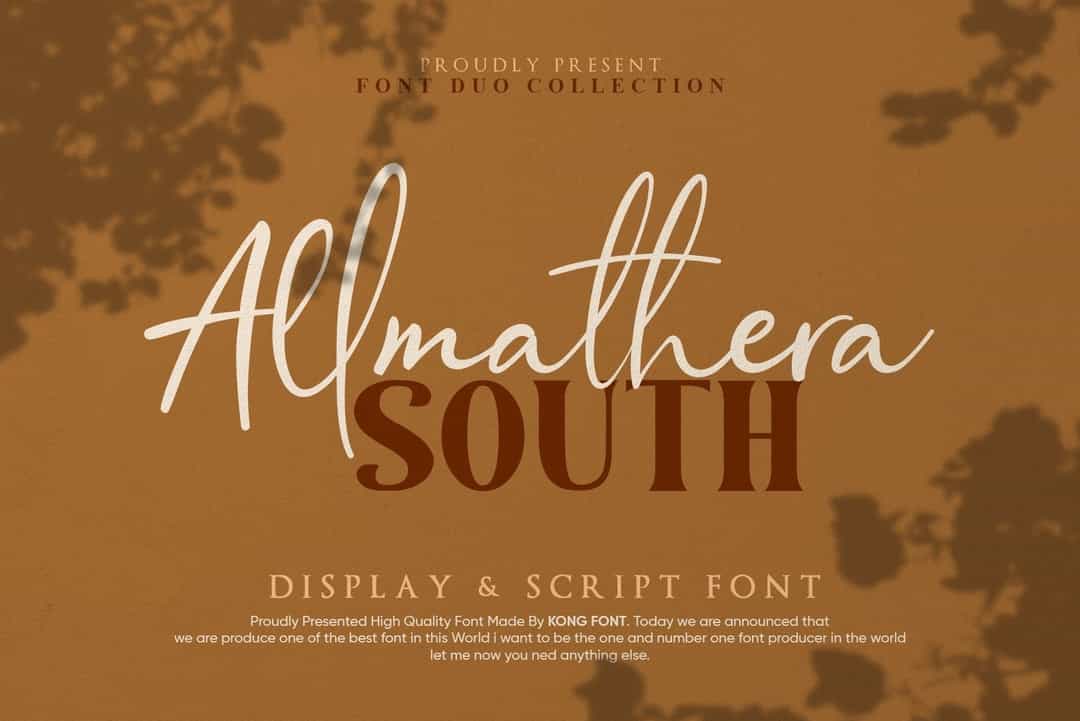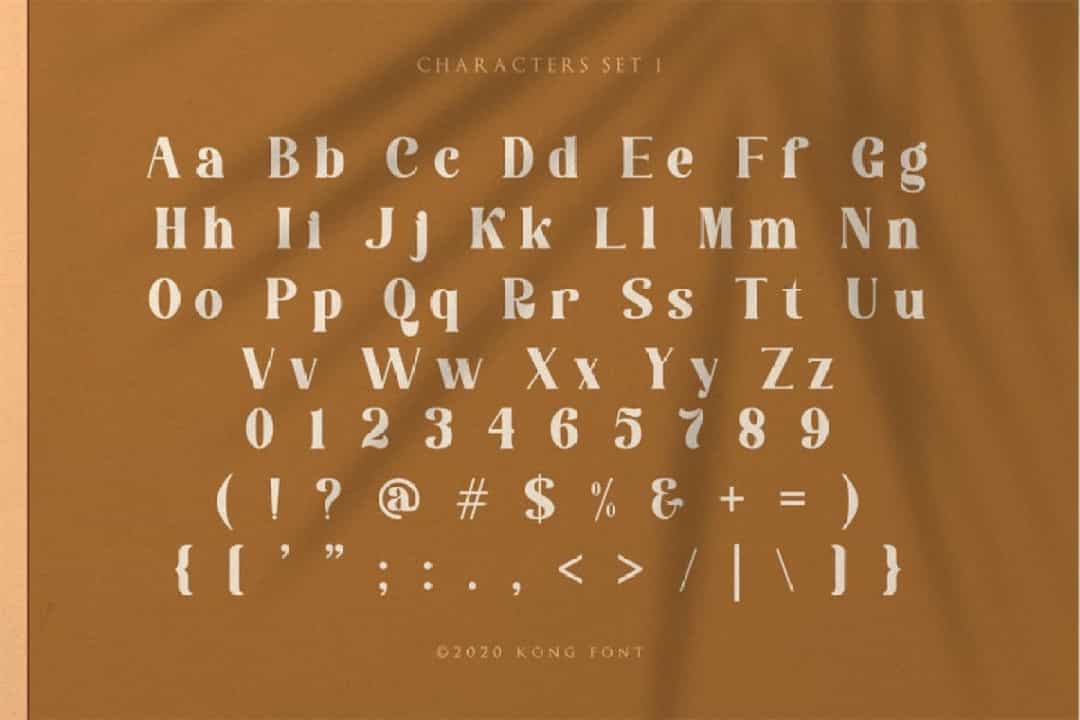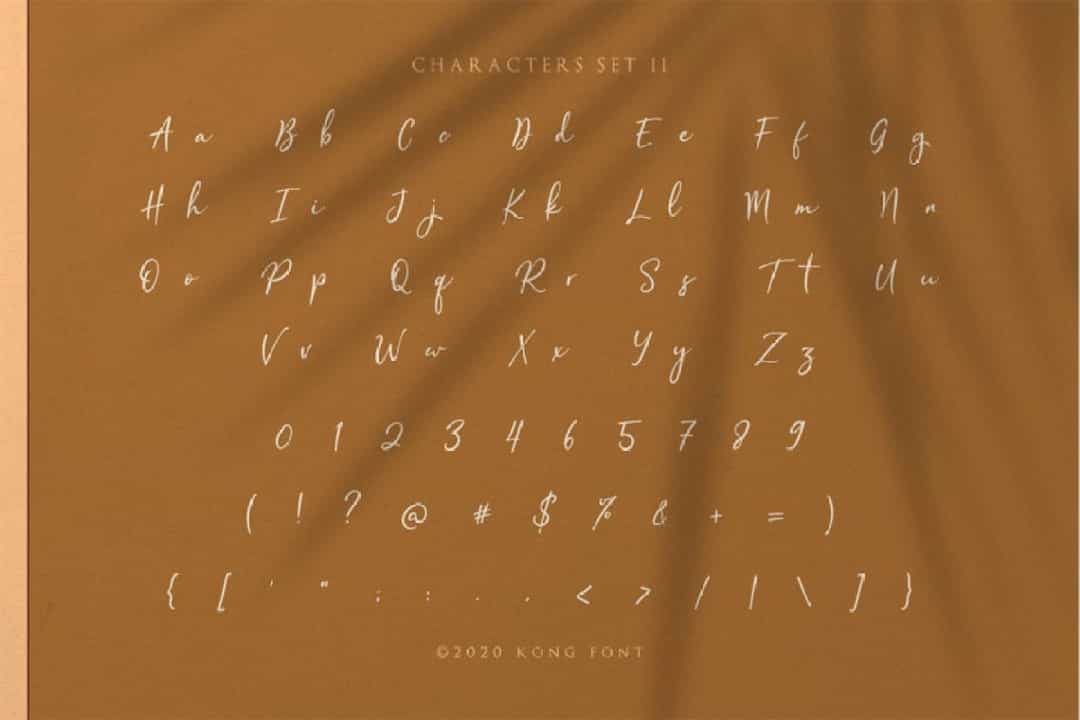
Allmathera South Font Duo
Here is Our Allmathera South Font Duo Welcome to Our Newest Font Family Allmathera South Font Duo This font family is perfect for designing cute invitation for wedding, birthday and other events. In addition, since the letters and numbers are used,